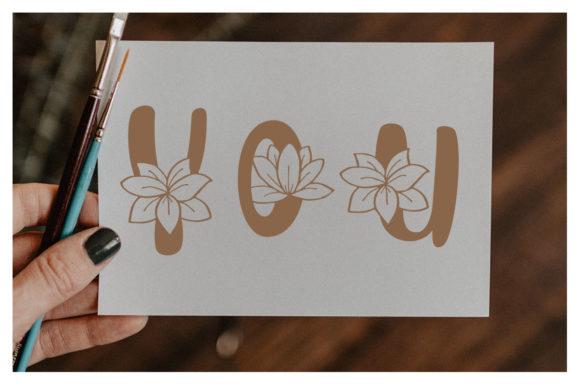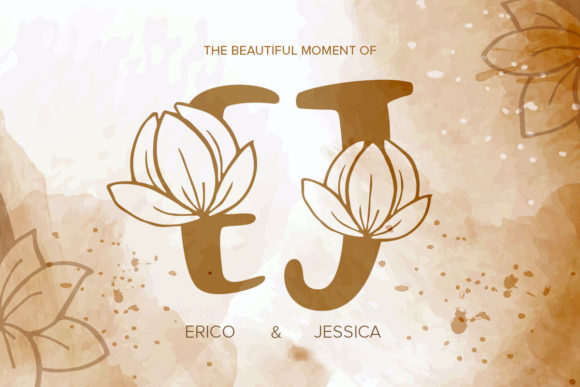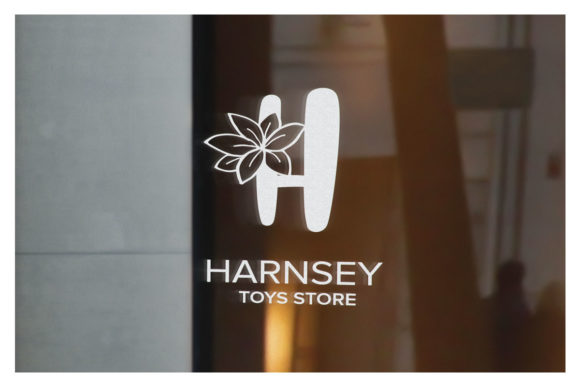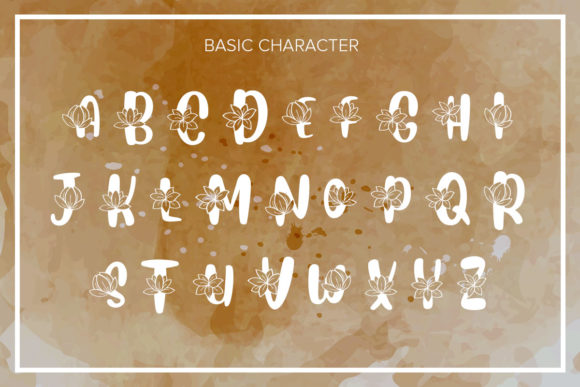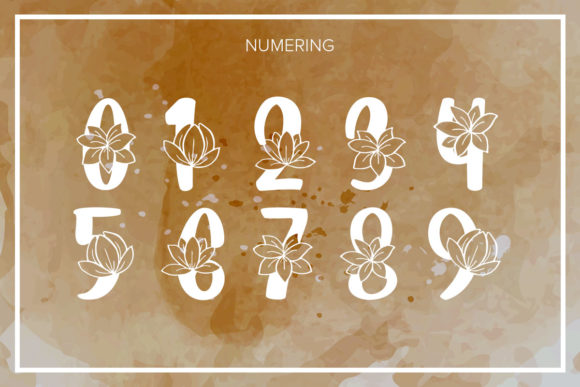
Brown Monogram Font: A Sweet Decorative Font for Your Creative Projects
Are you looking for a font that can add a touch of elegance and whimsy to your designs? Look no further than the Brown Monogram Font. This beautiful decorative font features a lovely flower ornament that will make your projects stand out. In this article, we’ll explore the features of the Brown Monogram Font and how you can use it to create stunning wedding invitations, stationary art, social media posts, and greeting cards.
What is Brown Monogram Font?
Brown Monogram Font is a sweet decorative font that is perfect for designers and crafters who want to add a personal touch to their projects. The font features a beautiful flower ornament that gives it an authentic feel. The font is designed to be easy to read and use, making it perfect for a variety of creative projects.
Features of Brown Monogram Font
- Lovely Flower Ornament: The font features a beautiful flower ornament that adds a touch of elegance and whimsy to your designs.
- Authentic Feel: The font has an authentic feel that makes it perfect for creating traditional and vintage-inspired designs.
- Easy to Read: The font is designed to be easy to read, making it perfect for use in wedding invitations, greeting cards, and other projects where readability is important.
- Versatile: The font is versatile and can be used for a variety of creative projects, including wedding invitations, stationary art, social media posts, and greeting cards.
Uses of Brown Monogram Font
Brown Monogram Font is a versatile font that can be used for a variety of creative projects. Here are some ideas for using the font:
- Wedding Invitations: Use the font to create beautiful and elegant wedding invitations that will set the tone for your special day.
- Stationary Art: Use the font to create stunning stationary art, including notecards, journals, and planners.
- Social Media Posts: Use the font to create eye-catching social media posts that will make your followers stand up and take notice.
- Greeting Cards: Use the font to create cute and personalized greeting cards for special occasions, such as birthdays, anniversaries, and holidays.
Tips for Using Brown Monogram Font
Here are some tips for using Brown Monogram Font in your creative projects:
- Pair with Other Fonts: Pair the font with other fonts to create a unique and interesting look.
- Use in Combination with Images: Use the font in combination with images to create a visually appealing design.
- Keep it Simple: Keep your design simple and elegant to let the font shine.
| Font Name | Brown Monogram Font |
| Author | Monogram Lovers |
Brown Monogram Font is a beautiful decorative font that is perfect for designers and crafters who want to add a touch of elegance and whimsy to their projects. With its lovely flower ornament and authentic feel, this font is sure to become a favorite in your font collection. Whether you’re creating wedding invitations, stationary art, social media posts, or greeting cards, Brown Monogram Font is a versatile font that can help you create stunning designs.